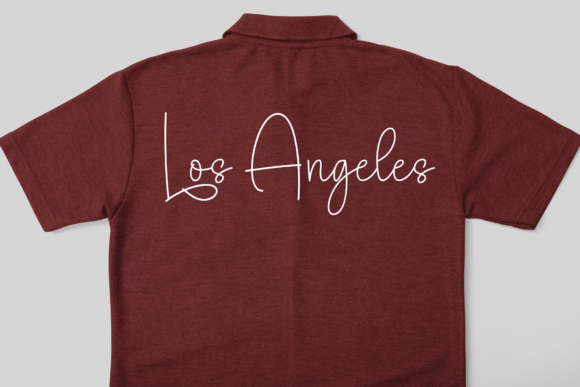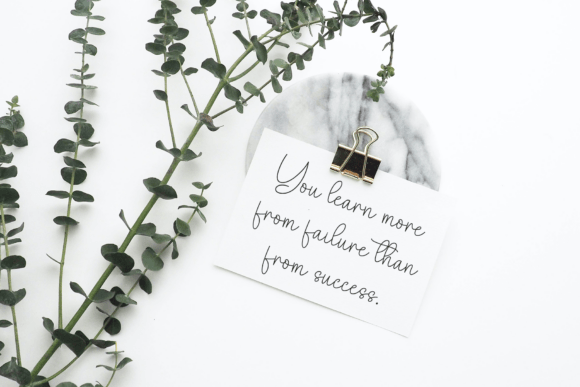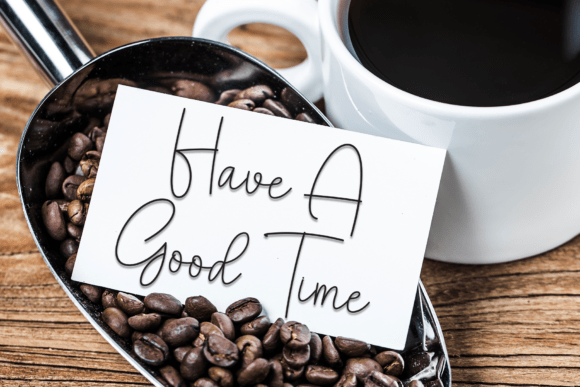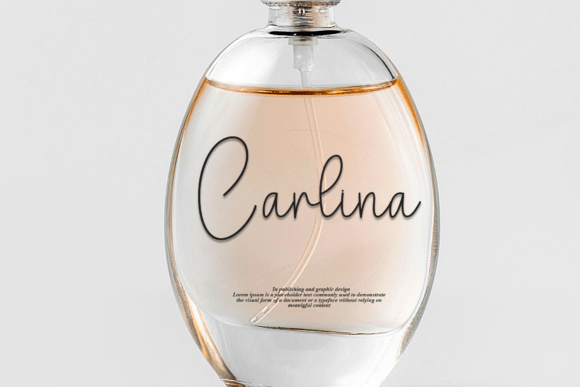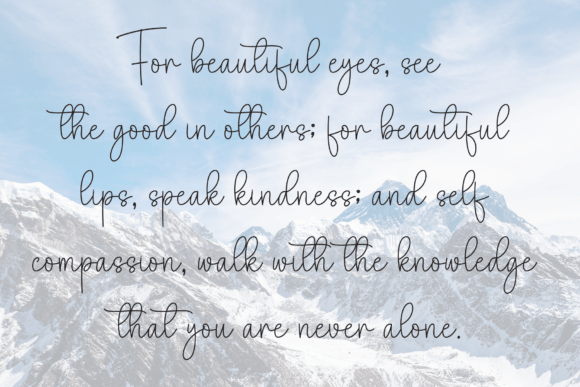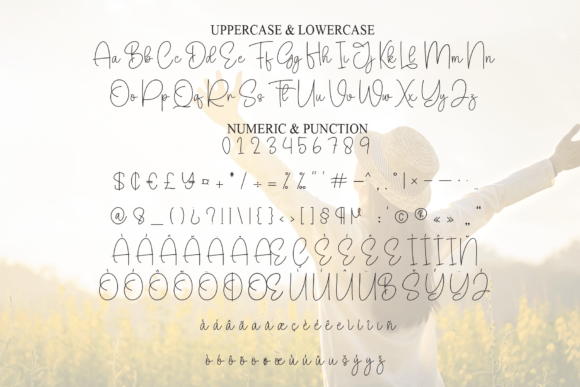
Introducing Delightful Font: Elevate Your Designs with Elegance and Playfulness
In the world of typography, fonts play a crucial role in conveying the tone and personality of a design. For designers and crafters seeking a typeface that combines modern sophistication with a touch of playfulness, Delightful Font is an exceptional choice. This stylish handwritten script font is designed to bring a personal feel to any project, making it ideal for logos, packaging, invitations, and more.
The Charm of Delightful Font
Delightful Font boasts fluid strokes and charming curves that give it a unique and captivating appearance. Its elegant and refined aesthetic makes it perfect for designs that require a touch of sophistication, while its playful undertones add a whimsical feel that’s sure to engage audiences. Whether you’re working on a luxury brand logo, a wedding invitation, or a product packaging design, Delightful Font is sure to make your project stand out.
Key Features of Delightful Font
- Modern Elegance: Delightful Font’s sleek and refined design ensures that your projects exude a sense of luxury and sophistication.
- Playful Touch: The font’s playful curves and fluid strokes add a whimsical feel to your designs, making them more approachable and engaging.
- Versatility: Delightful Font is suitable for a wide range of design applications, from logos and packaging to invitations and social media graphics.
- Personal Feel: The font’s handwritten nature gives it a personal and human touch, allowing you to connect with your audience on a more intimate level.
Design Applications for Delightful Font
Delightful Font’s versatility makes it an excellent choice for various design projects. Here are some ideas to get you started:
- Logos: Create a lasting impression with a custom logo that showcases your brand’s personality and values.
- Packaging: Add a touch of elegance and sophistication to your product packaging, making it stand out on store shelves.
- Invitations: Make your special occasions unforgettable with beautifully designed invitations that set the tone for your event.
- Social Media Graphics: Elevate your social media presence with eye-catching graphics that reflect your brand’s unique personality.
Why Choose Delightful Font?
With so many fonts available, why choose Delightful Font for your design projects? Here are a few compelling reasons:
- Unique Aesthetic: Delightful Font’s distinctive design ensures that your projects stand out from the crowd.
- Easy to Read: The font’s clear and legible design makes it easy for your audience to read and engage with your content.
- Customizable: Delightful Font can be easily customized to fit your brand’s specific needs and style.
Delightful Font is a stylish and versatile typeface that’s perfect for designers and crafters seeking to add a touch of elegance and playfulness to their projects. With its fluid strokes, charming curves, and modern aesthetic, this font is sure to elevate your designs and make them more engaging. Whether you’re working on a logo, packaging, invitation, or social media graphic, Delightful Font is an excellent choice for any design project.